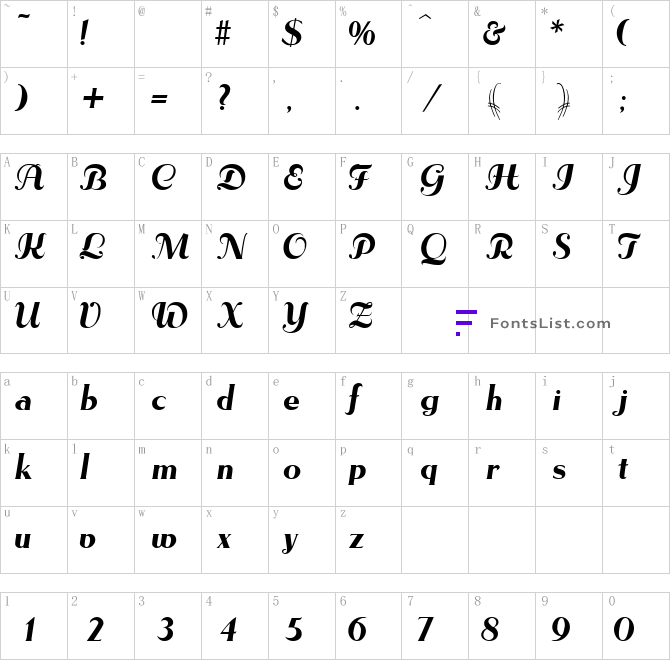
- Font Name:Adastra Black
Adastra-Black.ttf is a very beautiful artistic font, Adastra-Black.ttf is widely used in the design and printing of various books and pictures,Adastra-Black.ttf has a strong visual impact,Adastra-Black.ttf is a commonly used font in newspapers, magazines and books, and is used in posters, e-commerce Poster design, store design, logo design, font design and other fields.Adastra-Black.